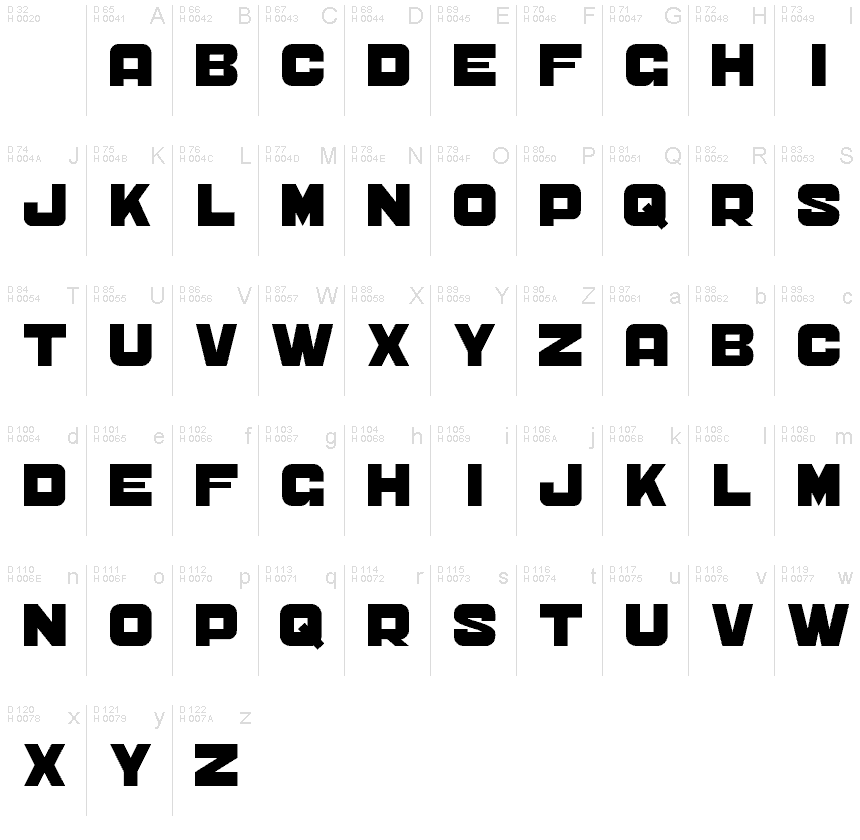
CS Sandreas Demo
CS Sandreas font by Craft Supply Co. is a bold sans serif font with an expanded width and blocky features. The geometric structure of this contemporary urban typeface is designed to create a bold presence with a strong impact on the reader.
Use CS Sandreas in poster design, headings, logotypes, branding projects, printed products like magazines and newspapers, digital publication design, e-books and websites presented in mockups or live.